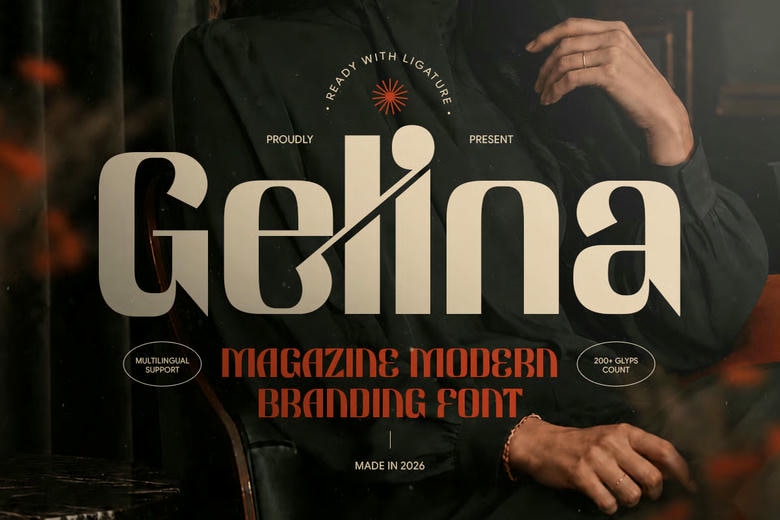
Gelina is a modern display font with a refined look. Its elegant design and balanced shapes create a unique style, making it ideal for editorial projects and brand identities. Gelina works well for magazine covers, editorial layouts, logos, branding, headlines, posters, packaging, and websites. Its bold and elegant look helps your project stand out.
Gelina Display Font